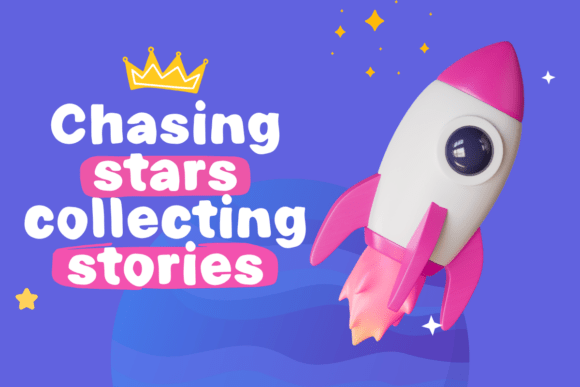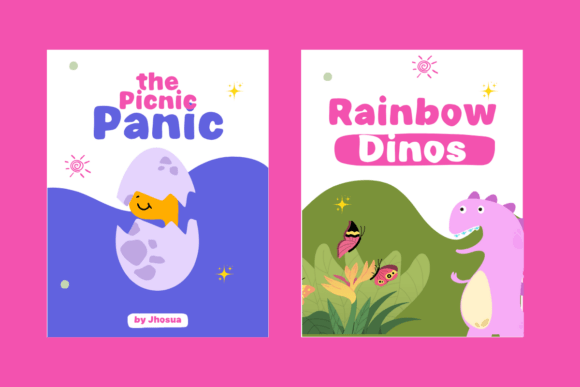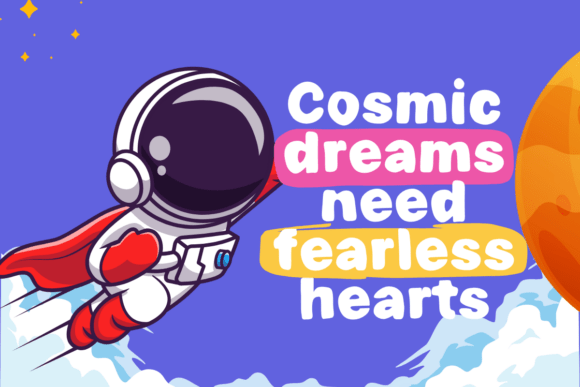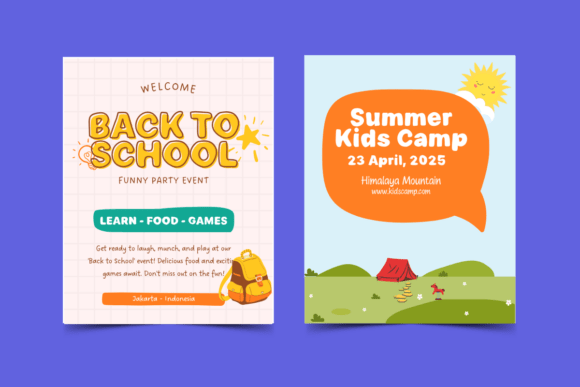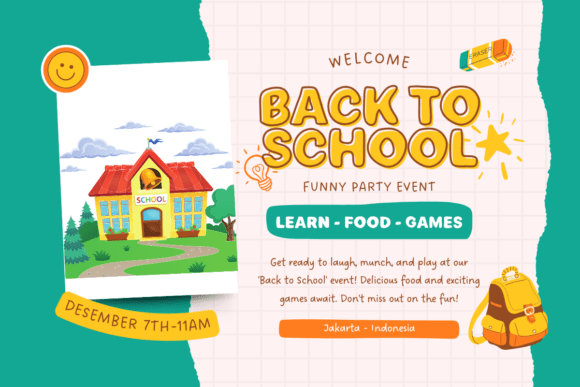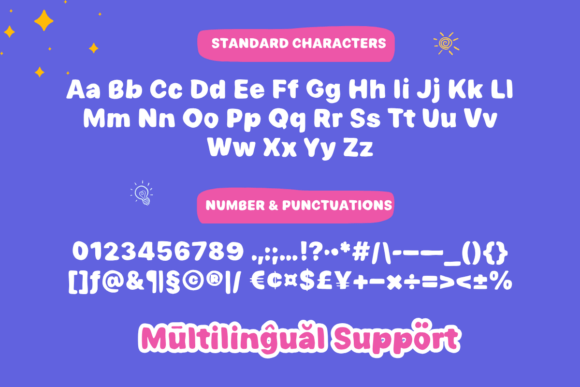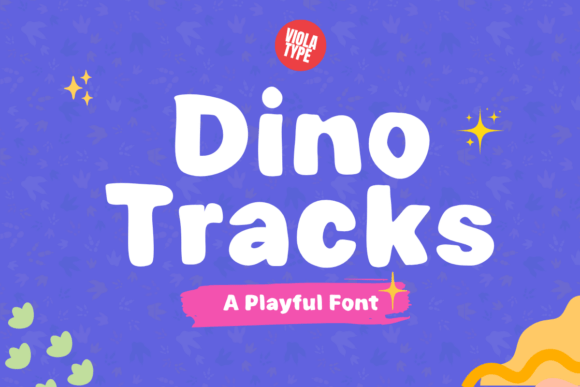
Dino Tracks Font: Unleash Your Creativity with a Cheerful and Playful Handwritten Font
Are you tired of using the same old fonts in your creative projects? Look no further! Say hello to Dino Tracks, a cheerful and playful handwritten font designed to bring joy, energy, and a touch of adventure to your work. Inspired by the fun and curiosity of childhood, this font features bold, rounded letters that feel warm, approachable, and full of personality.
The Inspiration Behind Dino Tracks
Dino Tracks is more than just a font – it’s an experience. Imagine little dinosaur footprints across a page, leaving a trail of excitement and curiosity. That’s exactly what this font aims to capture. The designers behind Dino Tracks drew inspiration from the carefree days of childhood, when imagination knew no bounds and creativity flowed freely. The result is a font that’s perfect for designers, crafters, and anyone looking to add a dash of whimsy to their work.
Key Features of Dino Tracks
• Cheerful and Playful: Dino Tracks is designed to bring a smile to your face. Its bold, rounded letters are perfect for creating eye-catching headlines, titles, and text that demands attention.
• Handwritten with Love: This font is meticulously crafted to feel warm and approachable. Each letter is written with love and care, giving your text a personal touch that’s hard to replicate with generic fonts.
• Full of Personality: Dino Tracks has a unique personality that’s impossible to ignore. Its distinctive style makes it perfect for projects that require a bit of flair and creativity.
• Versatile: Whether you’re working on a digital project, crafting a poster, or designing a logo, Dino Tracks adapts seamlessly to any medium.
Use Cases for Dino Tracks
Dino Tracks is an incredibly versatile font that can be used in a wide range of projects, including:
• Branding and Logos: Create a memorable brand identity with a logo that stands out from the crowd.
• Posters and Flyers: Grab attention with bold, eye-catching headlines and text that pop.
• Digital Media: Add a touch of personality to your social media graphics, blog posts, and website content.
• Crafting and Scrapbooking: Add a personal touch to your handmade crafts, scrapbook pages, and journal entries.
Tips for Using Dino Tracks Effectively
To get the most out of Dino Tracks, here are a few tips to keep in mind:
• Mix and Match: Combine Dino Tracks with other fonts to create visual interest and add depth to your text.
• Experiment with Colors: Dino Tracks looks great in bold, bright colors. Don’t be afraid to get creative and try out different color combinations.
• Play with Size: Use Dino Tracks in a variety of sizes to create visual hierarchy and emphasize important text.
Dino Tracks is more than just a font – it’s a creative partner that’s ready to help you bring your ideas to life. With its cheerful, playful, and adventurous vibe, this font is perfect for designers, crafters, and anyone looking to add a dash of personality to their work. So why settle for boring, generic fonts when you can unleash your creativity with Dino Tracks?